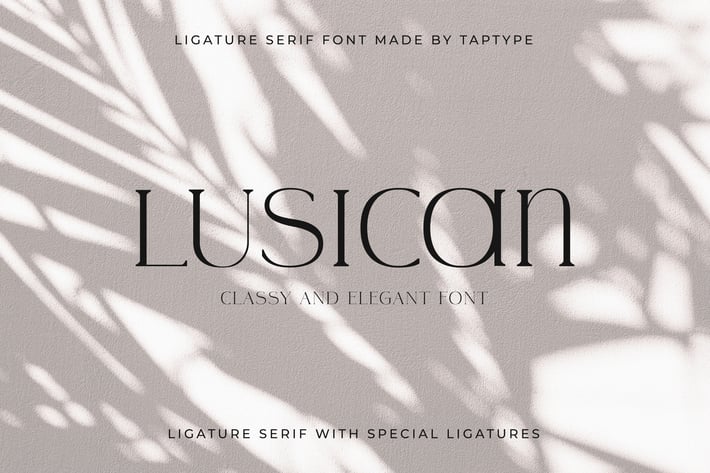
Lusican - Serif Display Font
Lusican is a stylish modern calligraphy font with ligature-rich Serif. Minimalist character that allowing you to easily edit the designs. It is perfect for branding, wedding invites and cards, and maybe for some project.
32 Special ligatures